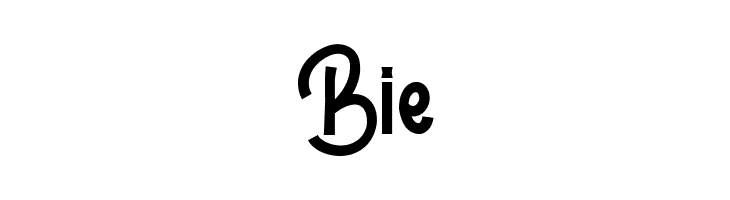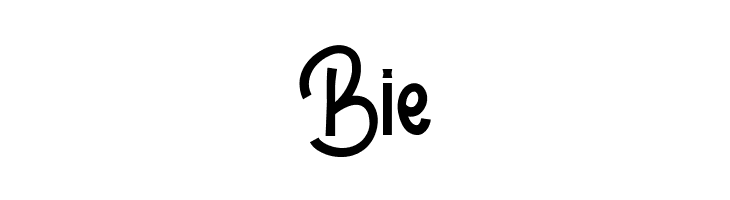
A playful and whimsical font with tall, narrow letters and a dynamic appearance.
A bold, playful font with whimsical uppercase and rounded lowercase letters.
A playful, handwritten font with a casual and whimsical style.
A bold, playful handwritten font with rounded, smooth letterforms.
A bold, playful handwritten font with a casual and lively style.